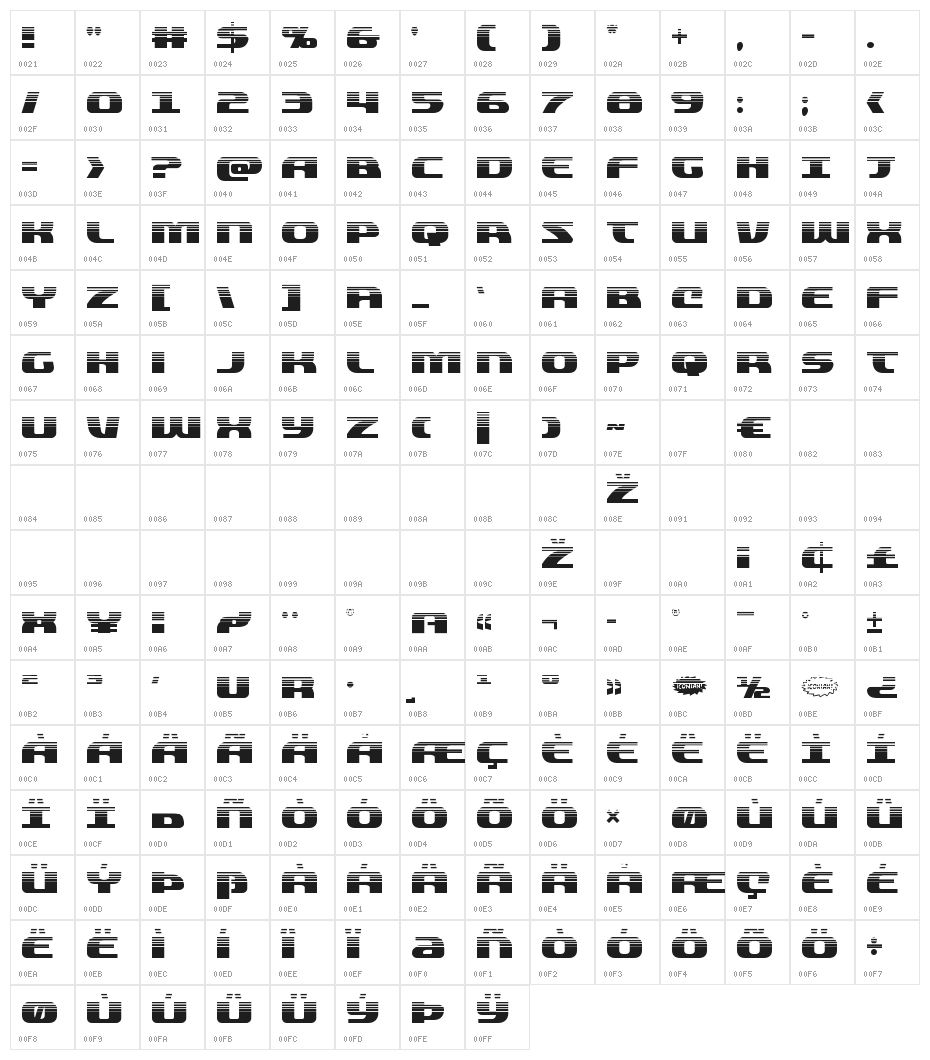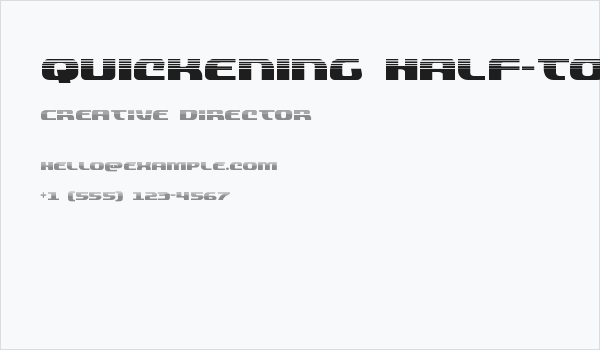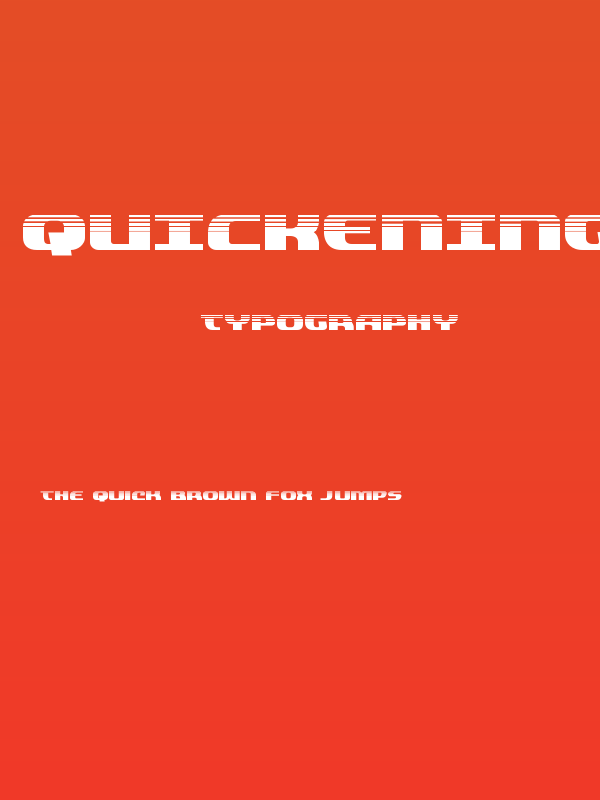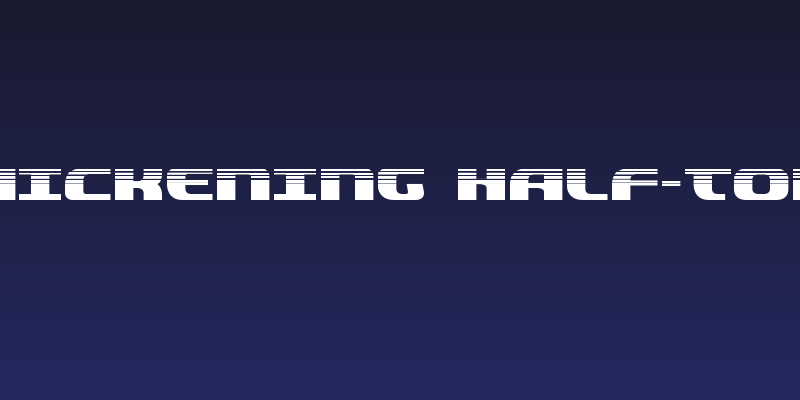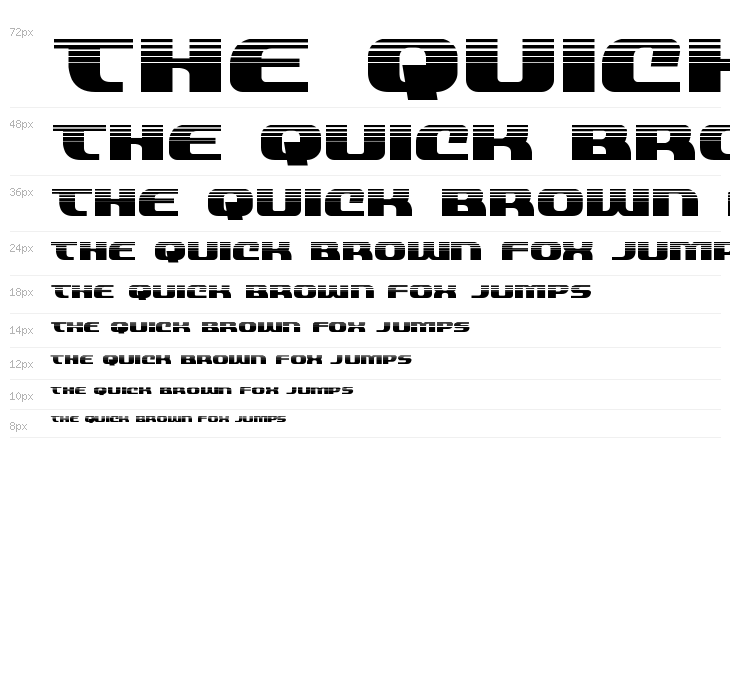
Quickening Half-Tone Font
Quickening Half-Tone Description
This font features a bold and dynamic design, characterized by its unique half-tone effect that creates a striking visual impact. The letters are constructed with a series of horizontal lines that give a sense of movement and energy. The uppercase and lowercase characters maintain a consistent style, with the uppercase letters exhibiting a strong presence. The numerals and special characters are designed to complement the overall aesthetic, making this font suitable for attention-grabbing designs. Its boldness and distinctive style make it ideal for projects that require a modern and edgy look.
| Proposed Projects | Ideal for posters, album covers, branding, and any project that requires a modern, edgy look. |